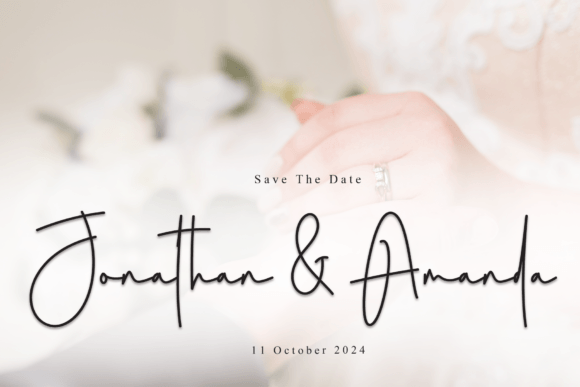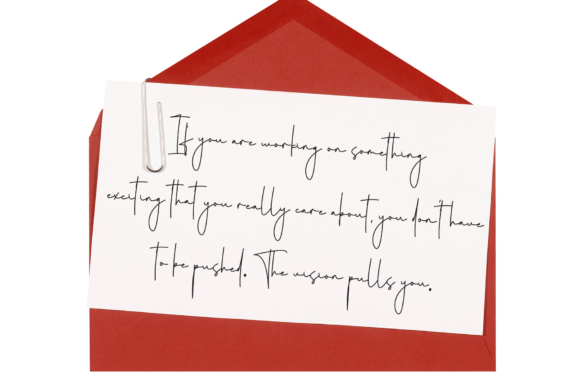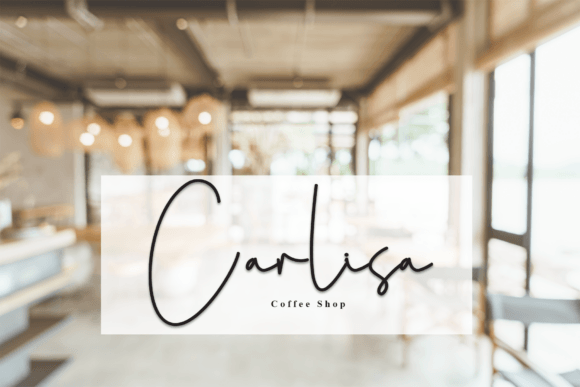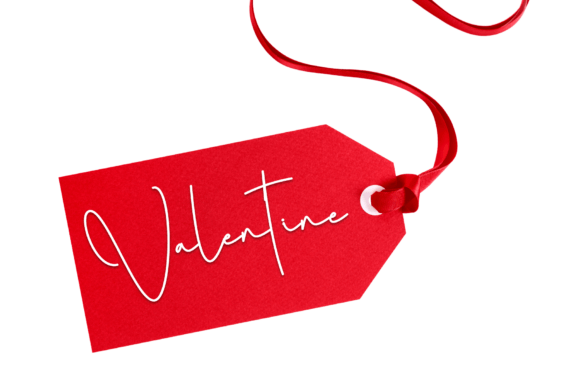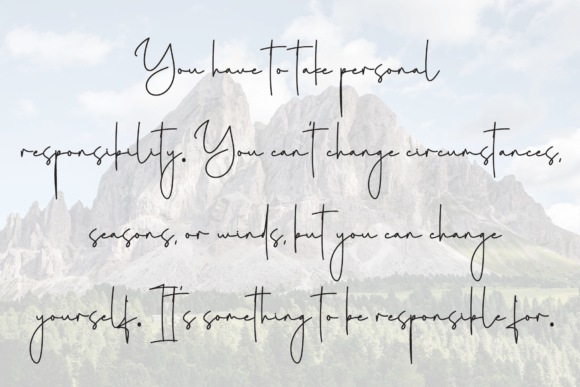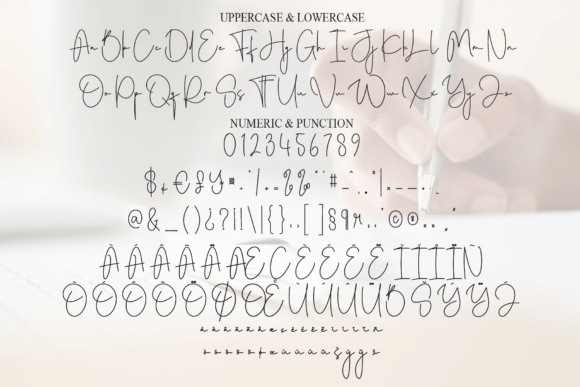
The Perfect Personal Touch: Discovering the Cassandra Signature Font
I still remember the time I was working on a wedding invitation project for a dear friend. I had all the design elements in place – beautiful watercolor illustrations, a soft color palette, and a lovely layout. But something was missing. The font I was using just didn’t feel personal or special enough for the occasion. That’s when I stumbled upon the Cassandra Signature font, and it completely transformed the design. In this article, I’ll share my experience with this elegant handwriting font and provide a comprehensive guide on how to make the most of it.
An Honest Review of Cassandra Signature
The Cassandra Signature font has been a game-changer for my designs. Here’s what I love about it:
- ✨ Elegant and natural look: The font has a smooth, flowing script that looks like real cursive writing.
- ✅ Perfect for personal projects: It’s ideal for adding a personal touch to invitations, logos, social media, and other creative projects.
- 💕 Warm and friendly feel: The font makes any text feel warm and inviting, perfect for designs that require a personal touch.
However, I do have to mention a few quirks:
- 🤔 Limited use in small sizes: The font can be a bit tricky to read in small sizes, so it’s best used in larger sizes or headings.
- ⚠️ Not suitable for body text: While it’s perfect for titles or headings, it’s not the best choice for long blocks of body text.
A Practical Guide to Using Cassandra Signature
- Experiment with OpenType features, such as ligatures and stylistic alternates, to add more personality to your text.
The Designer Inspiration Behind Cassandra Signature
The Cassandra Signature font was inspired by the beauty of handwritten script. The designer aimed to create a font that felt natural and elegant, perfect for adding a personal touch to designs. The font’s smooth, flowing letters are reminiscent of real cursive writing, making it perfect for designs that require a human touch.
| What is the Cassandra Signature font best used for? | The Cassandra Signature font is best used for titles, headings, and designs that require a personal touch. |
| Is the Cassandra Signature font suitable for body text? | No, the font is not suitable for long blocks of body text. It’s best used for titles or headings. |
| Is the Cassandra Signature font available in different styles? | Yes, the font comes in different styles, including regular, italic, and bold. |